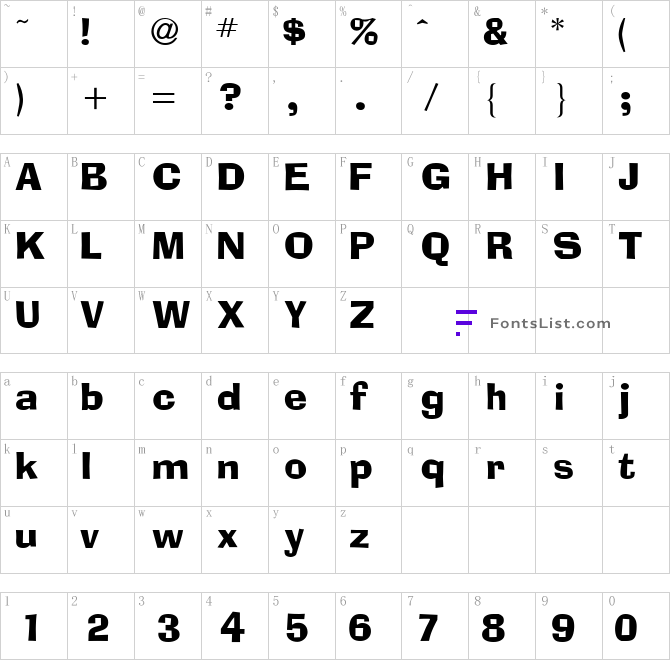
- Font Name:Anwik
Anwik.ttf is a very beautiful artistic font, Anwik.ttf is widely used in the design and printing of various books and pictures,Anwik.ttf has a strong visual impact,Anwik.ttf is a commonly used font in newspapers, magazines and books, and is used in posters, e-commerce Poster design, store design, logo design, font design and other fields.Anwik.